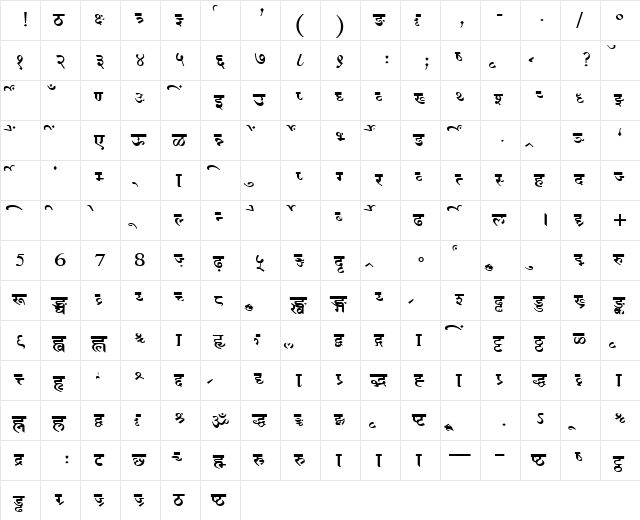
AkrutiDevManoj Bold
Design Context for AkrutiDevManoj Typeface
AkrutiDevManoj offers clean, dependable letterforms without strong stylistic allegiance, making it a practical choice for designers who need flexibility. The heavy weight commands attention and anchors typographic hierarchies.